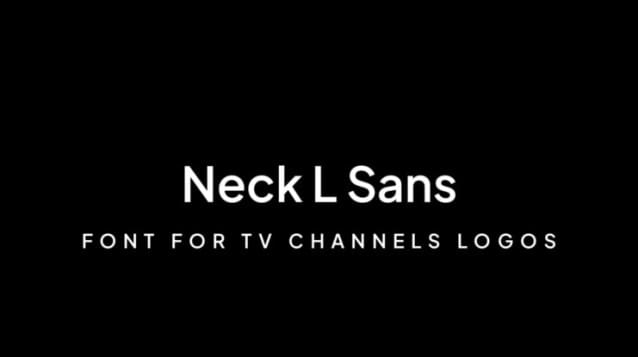
Neck L Sans Font, is amazing branding designer by Necktype & Raj Hubli, It would be a perfect choice to design posters, affiches, logos, t-shirt and magazine prints, eye-pleasing typographic designs and more.